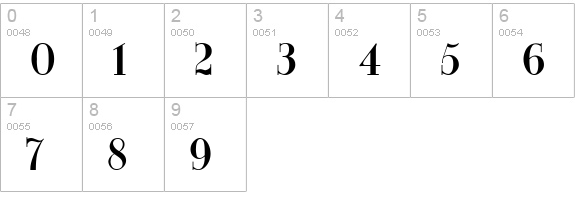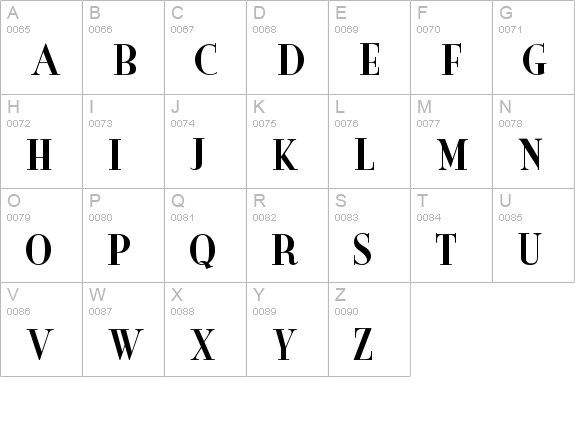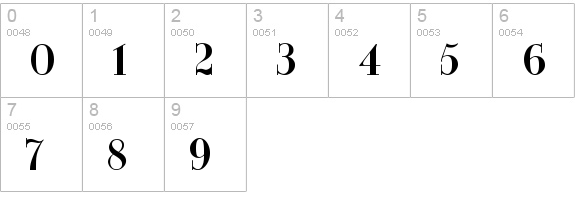
New Yorker Font Details
The New Yorker font is a classic and sophisticated typeface that exudes elegance and refinement. Its timeless design makes it perfect for a wide range of projects, from editorial layouts to branding materials. With its clean lines and modern aesthetic, New Yorker font strikes the perfect balance between professionalism and creativity. What sets New Yorker font apart is not just its stunning appearance, but also its versatility. Whether you're creating a sleek logo or designing a stylish magazine spread, this font will add a touch of sophistication to any project. Best of all, New Yorker font is available for free download at FontsMarket.com. So you can easily access this premium typeface without any cost. Don't miss out on the opportunity to enhance your designs with the exquisite beauty of New Yorker font. Download it today and elevate your creative projects to new heights.